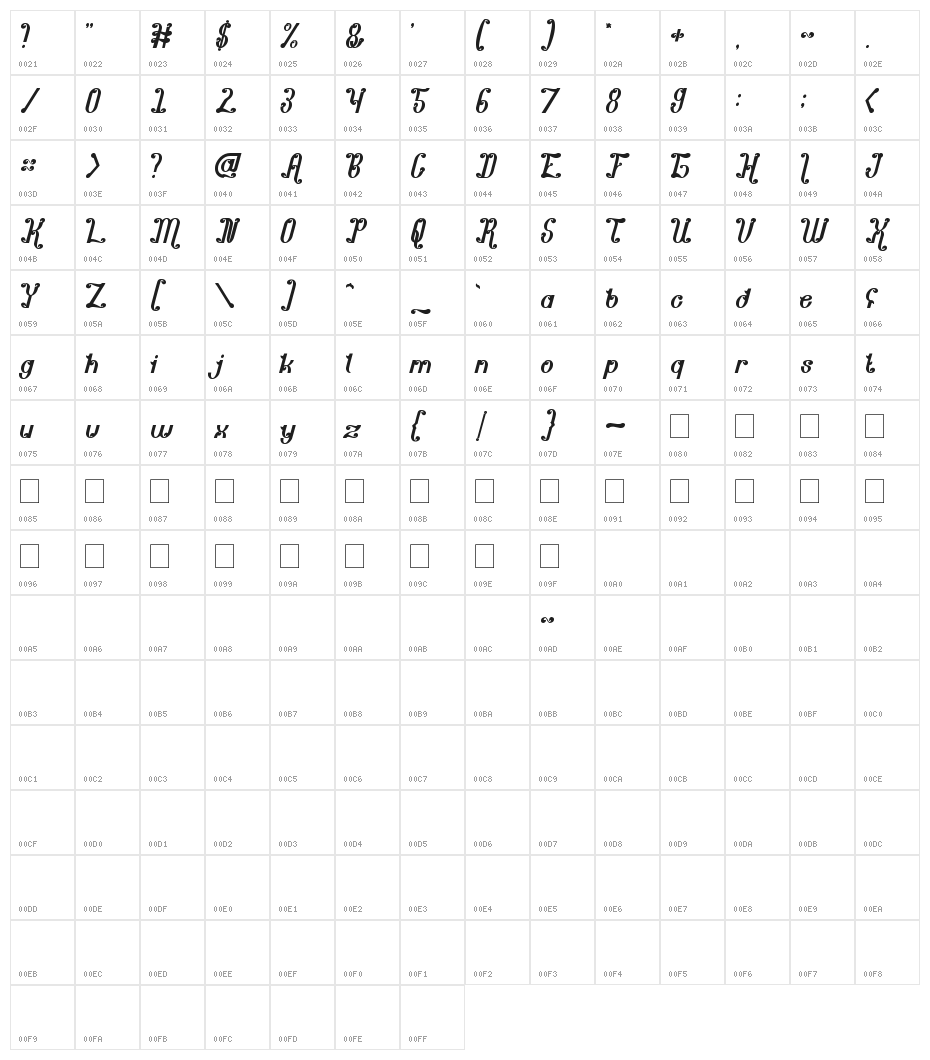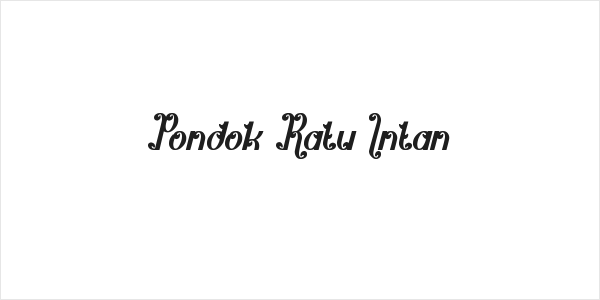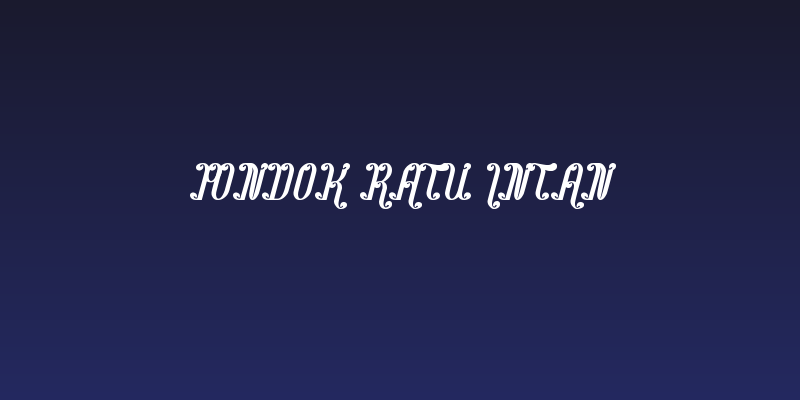
Pondok Ratu Intan Font
Pondok Ratu Intan Description
This font features a decorative and ornate style with elaborate curls and swirls extending from the ends of each character. The uppercase letters are particularly embellished, giving them a unique and artistic flair. The lowercase letters maintain a similar decorative style, though slightly more subdued, allowing for readability while still retaining an artistic touch. The numerals and special characters follow the same ornate design, making the entire set cohesive. This font is ideal for projects that require a touch of elegance and creativity, such as invitations, posters, or branding materials.